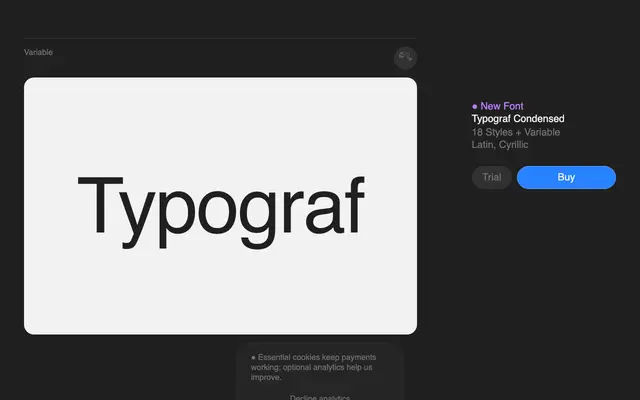
Typograf Condensed
A uniwidth condensed sans-serif in 18 styles, built so that character widths remain constant across all weights to keep UI layouts stable.
Designed by Rostislav Vaněk with collaboration from Matyáš Machat and Petr Kučera, Typograf Condensed applies a uniwidth principle where every glyph occupies the same horizontal space regardless of weight. This prevents text reflow and layout shift in buttons, tables and interface components when styles change. The family spans nine weights from Thin to Black, each with a matching italic, and is available as a variable font with Latin and Cyrillic coverage across 342 languages.
A condensed grotesque sans-serif built around uniwidth principles, where every style shares identical character widths to maintain stable layouts across UI states and weights.